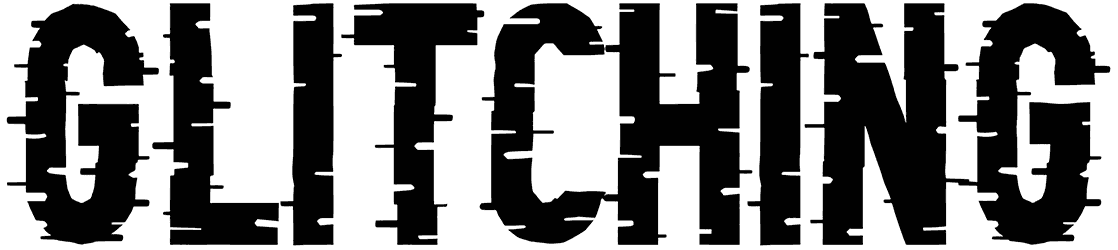
Dolphin With a Massive Shotgun Font
Dolphin with A Massive Shotgun Font
Dolphin With a Massive Shotgun is a distorted font that does not support lowercase letters. All characters of this font are irregularly and brokenly designed, and for this reason, it causes visual errors. Although it doesn’t have good readability, it conveys a sense of vitality and dynamics and is suitable for editing promotional videos.
Designed by: Chequered Ink